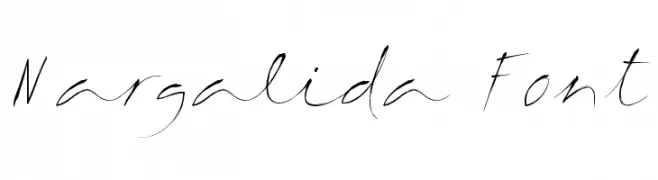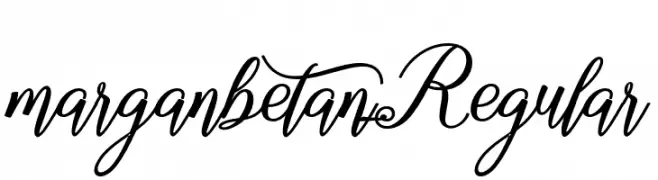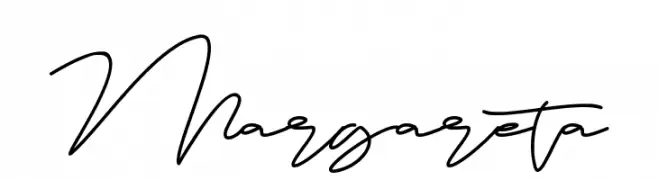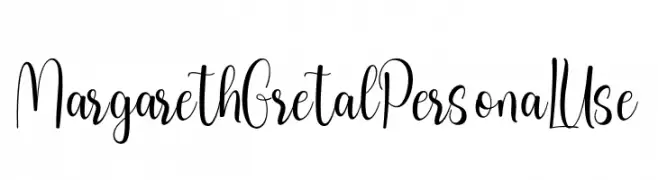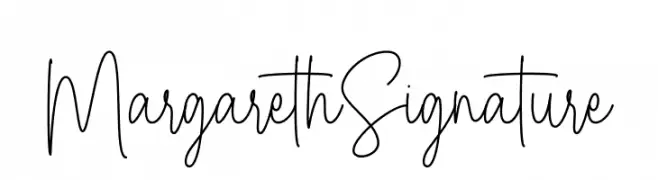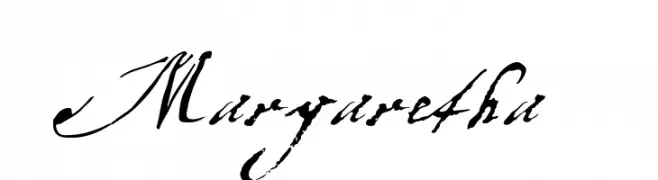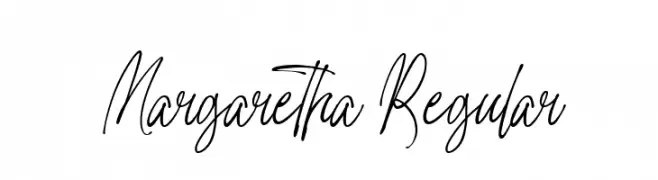
Thin, expressive handwritten script with a casual, organic feel.
A decorative script font with elegant swirls and loops.
An elegant script font with decorative flourishes and smooth connections.
A modern, elegant handwritten font with fluid strokes and graceful curves.
A modern, elegant script font with flowing, handwritten style.
A charming and elegant handwritten script with flowing, interconnected letterforms.
A casual, handwritten font with an elegant, signature-like style.
An elegant, classic script font with flowing cursive strokes and intricate detailing.
A playful, bold script font with a handwritten style.
A cursive, handwritten font with elegant, flowing strokes.